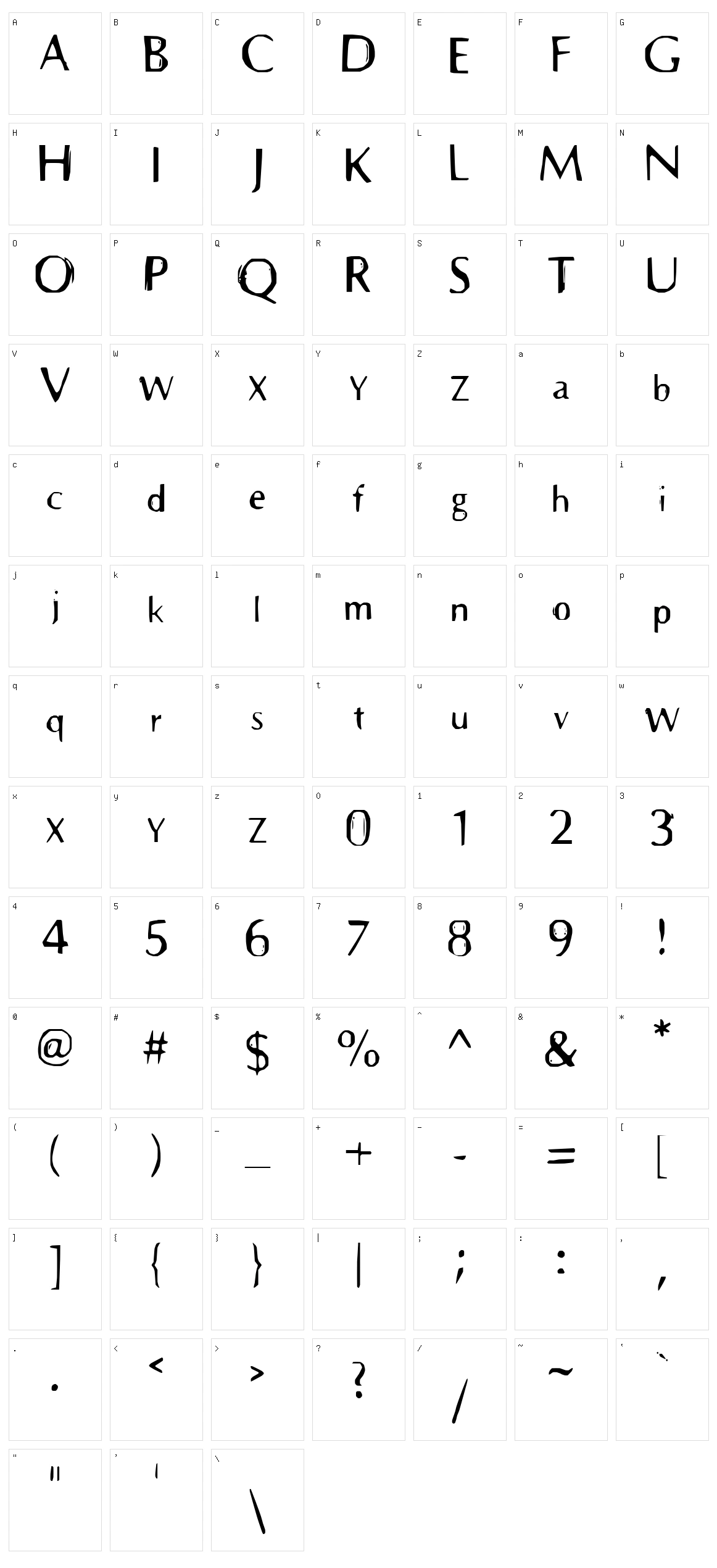
The free font Prehistoric is carefully designed by Shellie in co, showcasing a thoughtful balance of creativity and usability and falls under the Distorted font style. When you download the ZIP file, it contains only 21.28 KB of font files, making it lightweight and quick to download. Please review the license details below to understand permitted usage and distribution rights. If license information is not available, we recommend using this font for personal projects only or contacting the author directly for commercial usage permissions.